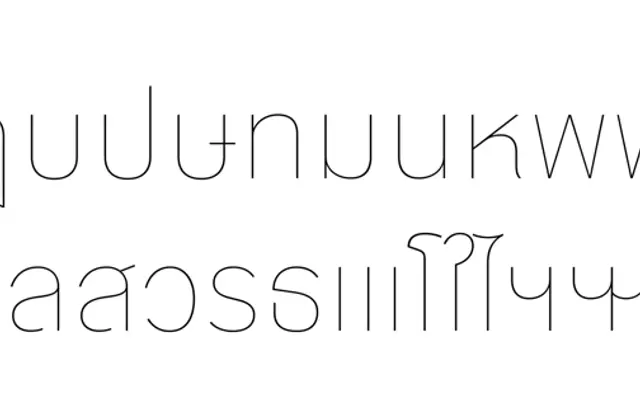
Bilo Thai
Bold Monday · Pieter van Rosmalen, Promphan 'Boom' Suksumek · 2018
A Thai script companion to Bilo, designed by Promphan Suksumek alongside Pieter van Rosmalen's original Latin family, sharing its wide circular forms and pointy-eared terminals across nine weights.
Designed by Promphan 'Boom' Suksumek, this Thai extension of van Rosmalen's Bilo carries over the Latin's defining traits: low contrast, wide round shapes and the slightly pointy terminals that trace back to Bilo's origins as a sans-serif reinterpretation of Bodoni. Circular details echo native characteristics in letters such as Dochada and Thothan, while an alternate Sara-a glyph references Thai hand lettering conventions of the late 1950s and 60s. Stylistic alternates for Dodek, Totao and Ngongu allow a choice between rounder and more angular forms, giving the family flexibility across display and text sizes.
A loopless Thai sans-serif companion to the Latin Bilo family, sharing Bilo's low-contrast geometric character derived from van Rosmalen's Bodoni experiment. The design is classified as a modern loopless sans with wide, circular forms.